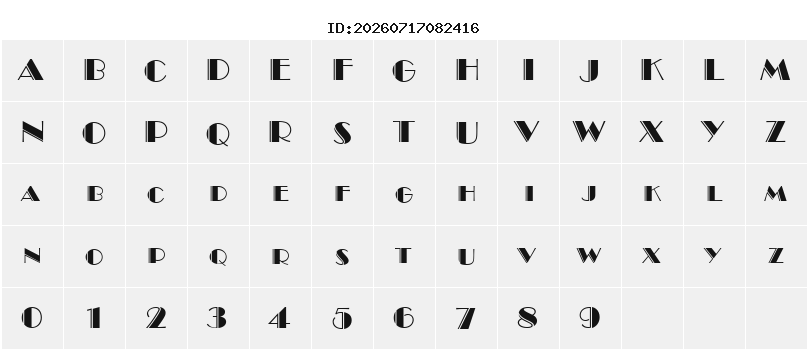
• Font Name: BravoEngraved
• Full Font Name: BravoEngraved
About BravoEngraved.ttf
BravoEngraved.ttf is a modern, elegant sans-serif font designed for ultimate readability and visual harmony. Perfect for branding, headlines, web design, and print materials.